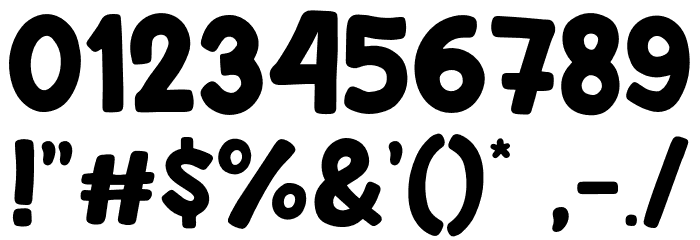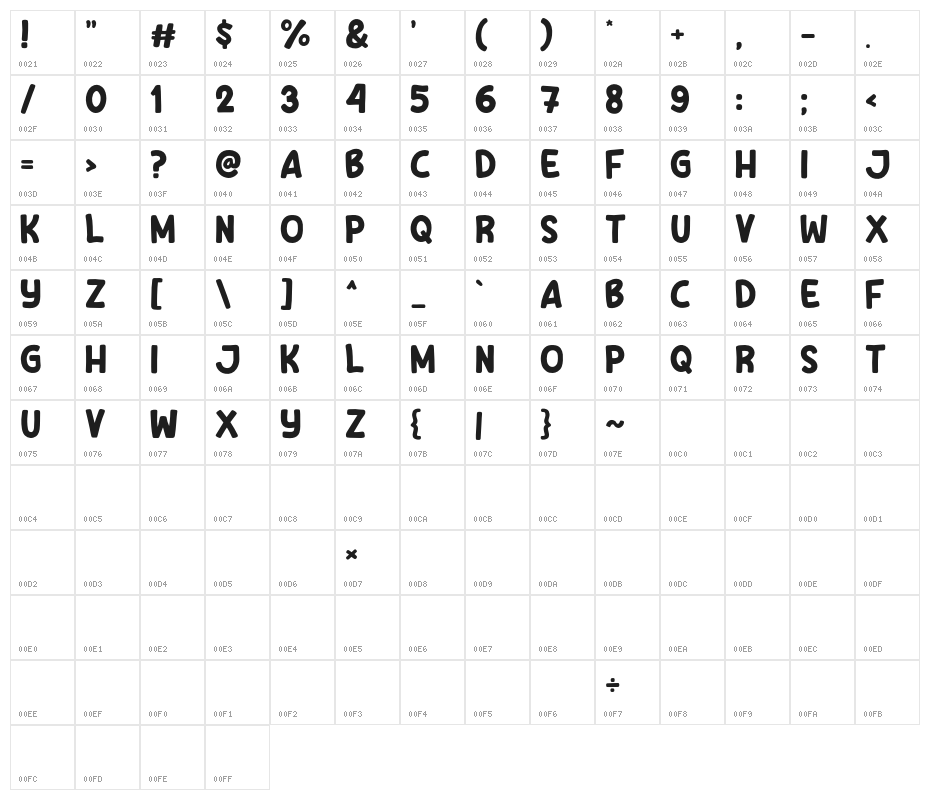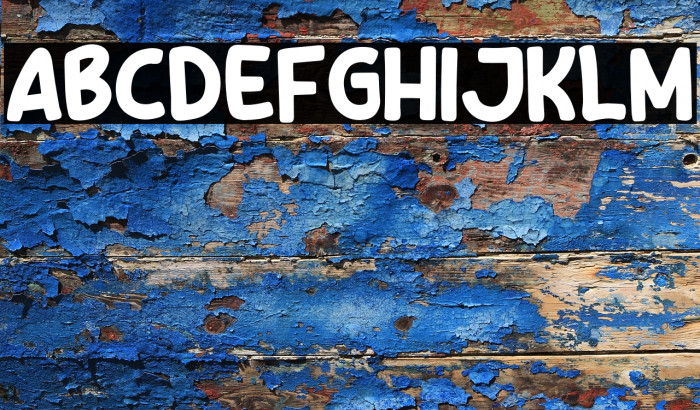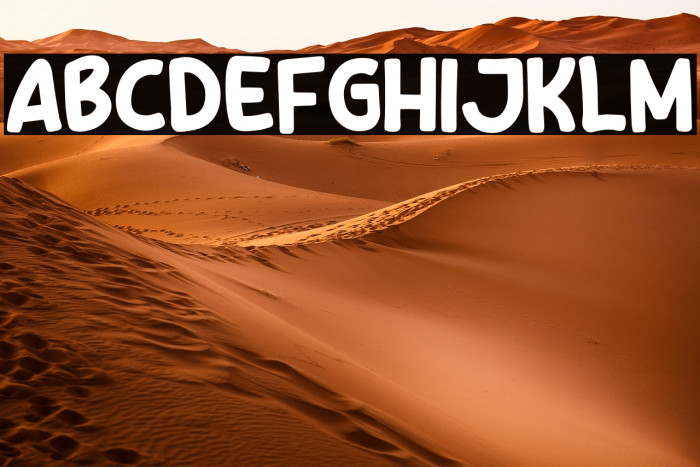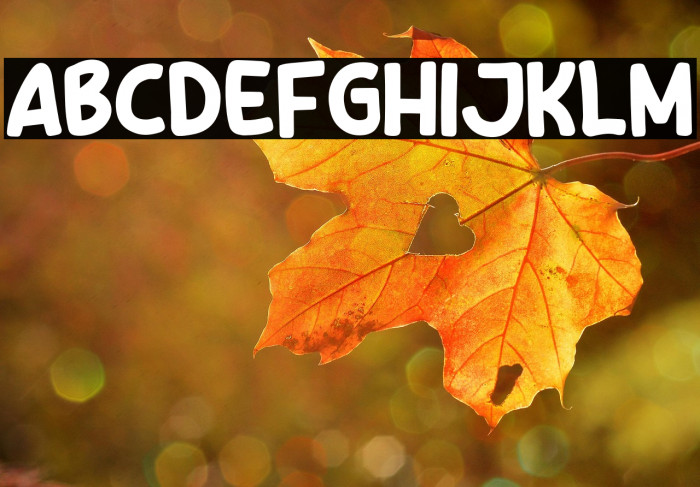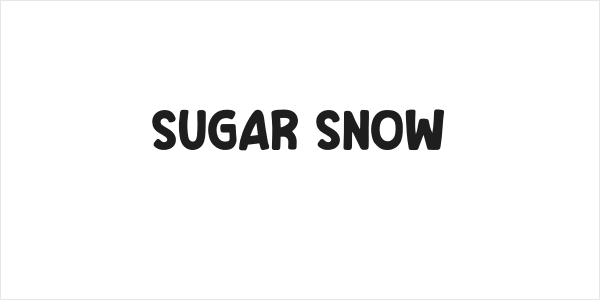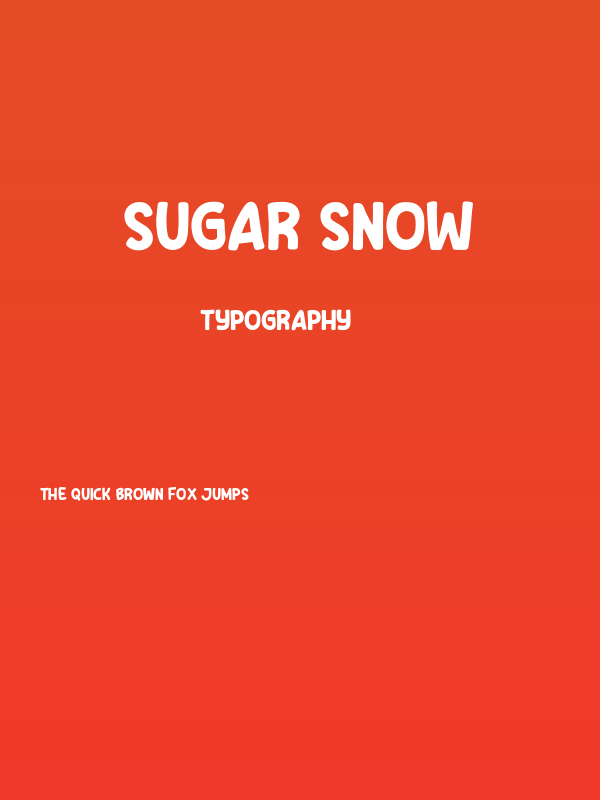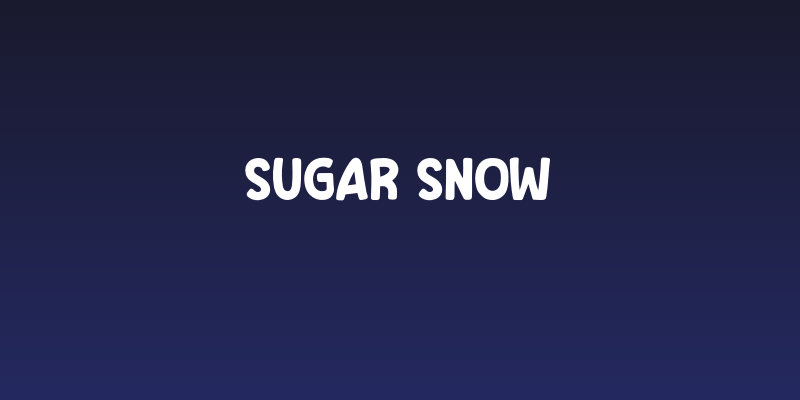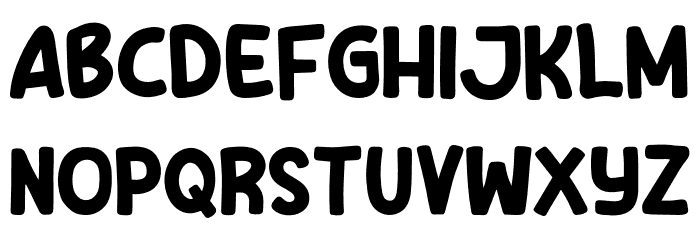
Sugar Snow Font
Sugar Snow Description
This playful and bold font features rounded edges and a slightly irregular form, giving it a whimsical and friendly appearance. The characters are thick and substantial, making them highly legible and impactful. The font maintains a consistent weight throughout, with a slight variation in stroke width that adds to its charm. Its informal style is reminiscent of hand-drawn lettering, making it suitable for projects that require a personal touch. The spacing between characters is normal, ensuring readability while maintaining its playful aesthetic.
A playful, bold font with rounded edges and a whimsical style from Cartoon fonts.
- Font: Sugar Snow
- Proposed Projects: Ideal for children's books, playful branding, greeting cards, and casual invitations.
- Overall Style: Playful